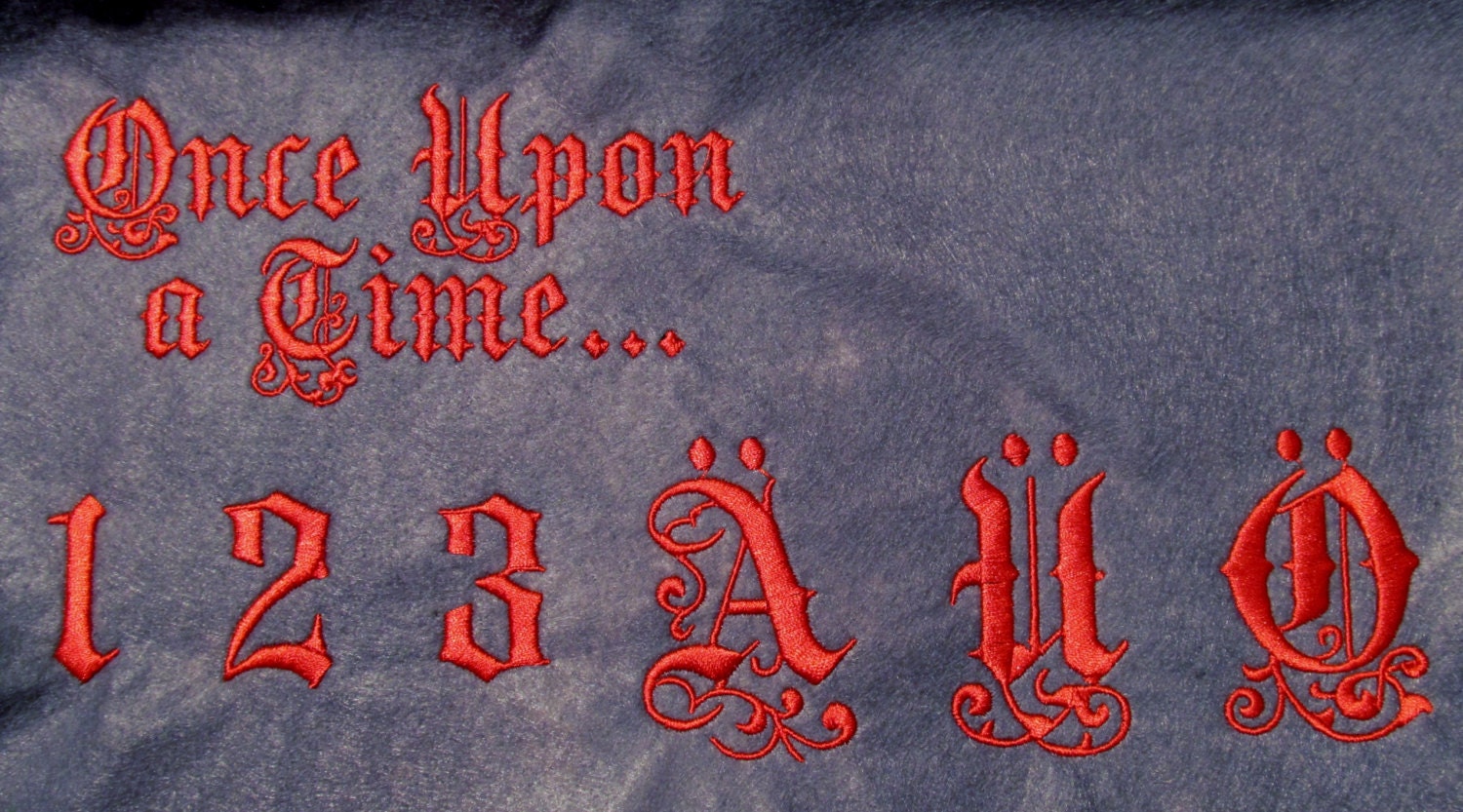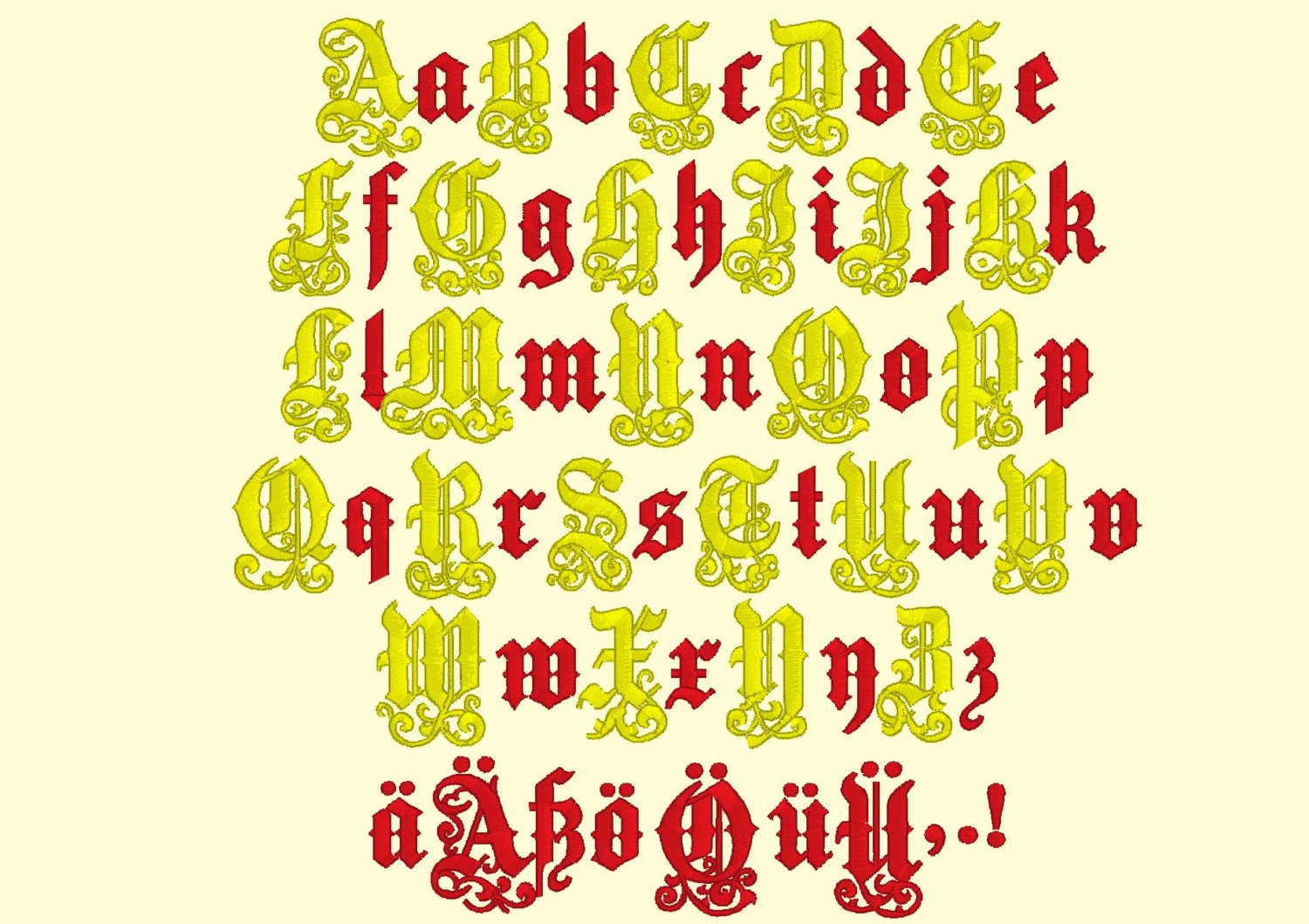
Magic Fairy tale Font Fairytale alphabet machine embroidery designs mini sizes, gothic old time caps letters and numbers INSTANT DOWNLOAD
Fairy tale font machine embroidery designs - caps, letters and numbers